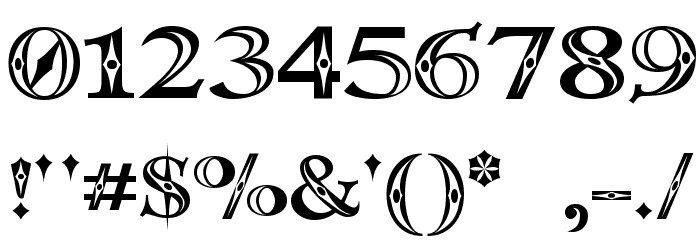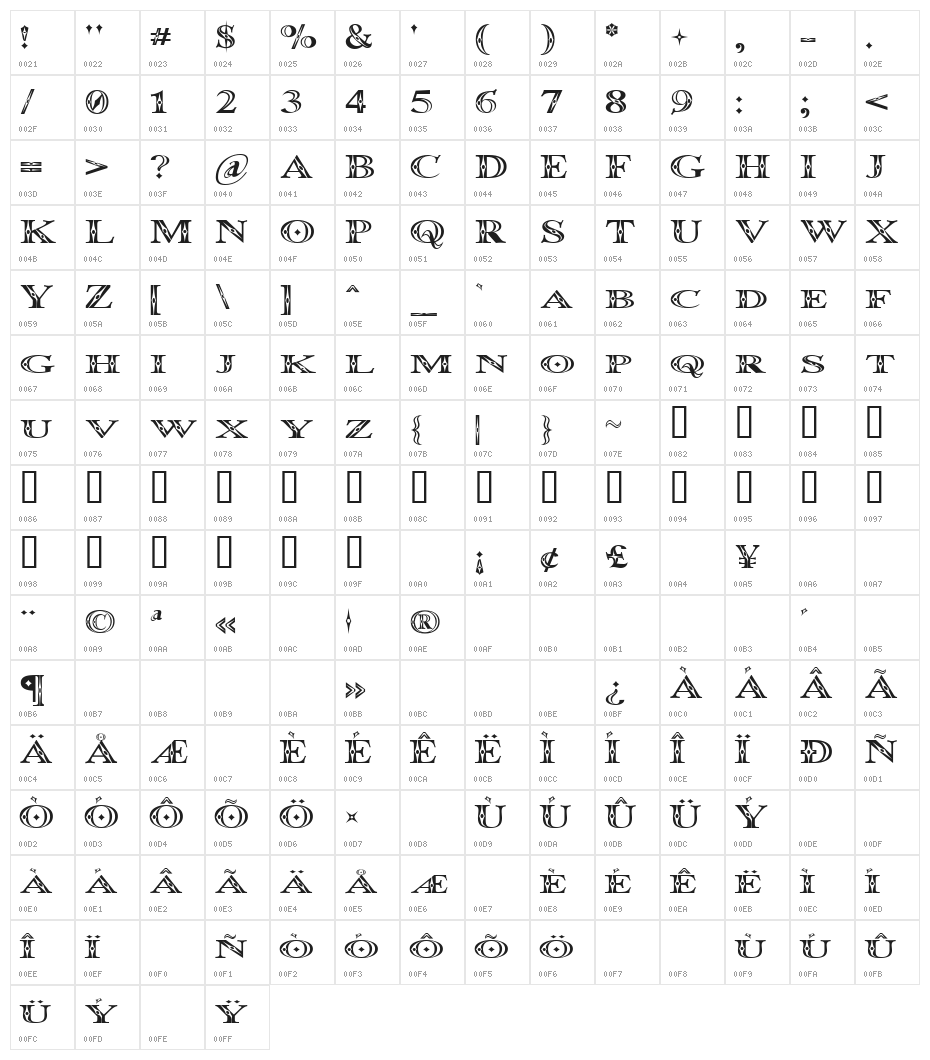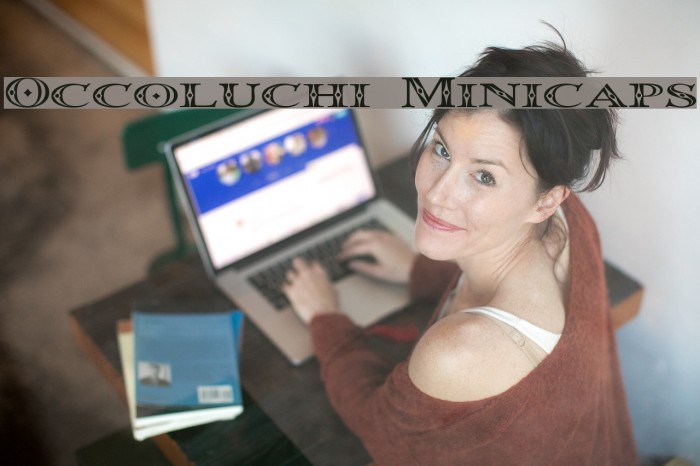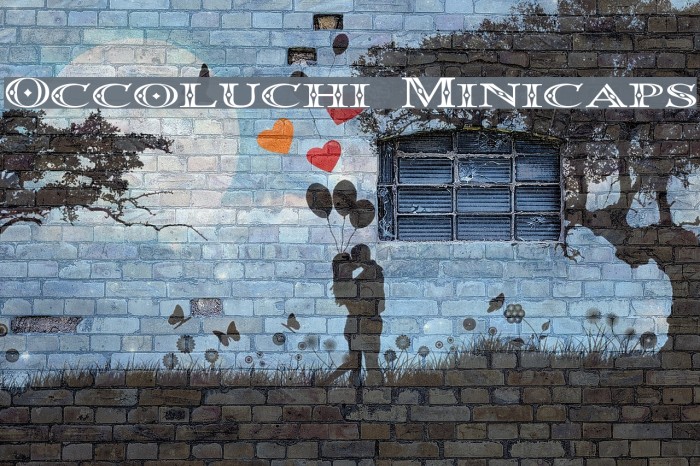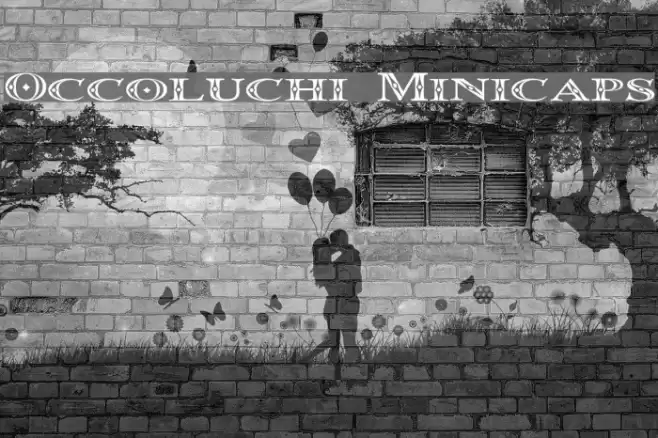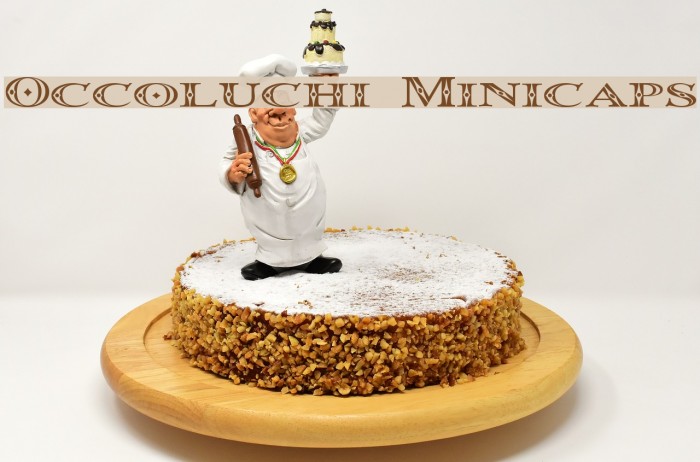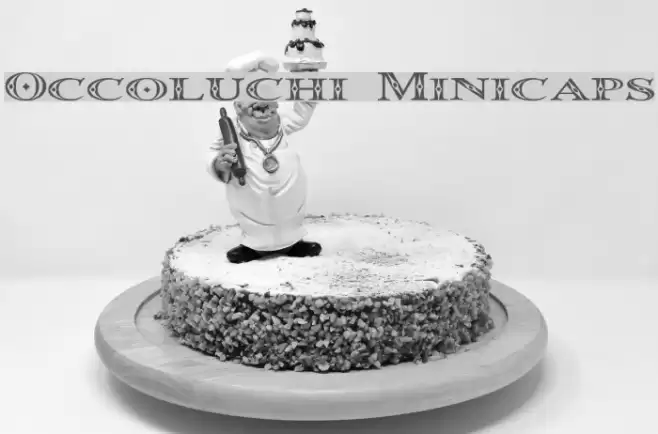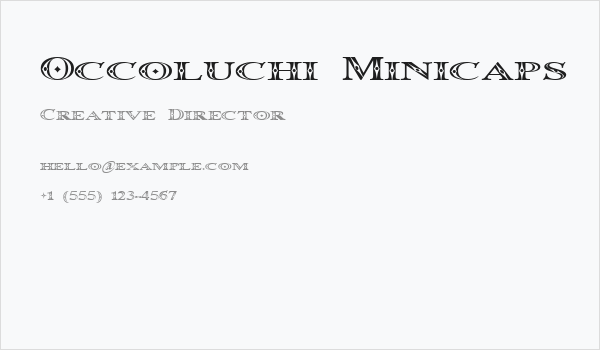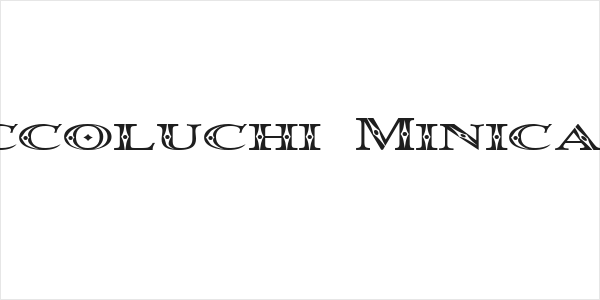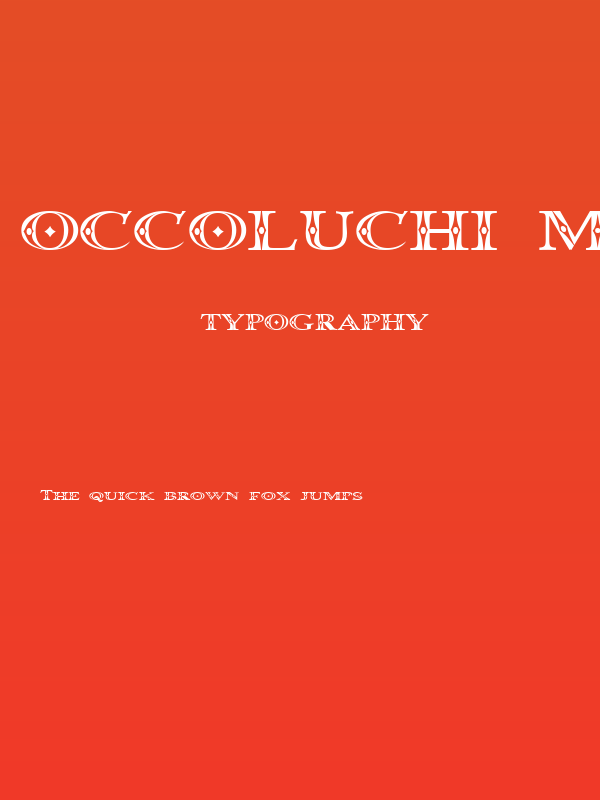
Occoluchi Minicaps Font
Occoluchi Minicaps Description
This font features a bold and decorative style with intricate patterns within each character. The uppercase letters are designed with a unique flair, incorporating geometric shapes and ornamental details that give it a distinct appearance. The lowercase letters maintain this decorative theme, ensuring consistency across the typeface. The numerals are equally stylized, with bold strokes and decorative elements that match the overall aesthetic. Special characters are designed with the same attention to detail, making this font suitable for artistic and creative projects. The font's elaborate design makes it ideal for use in headlines, logos, and other applications where a striking visual impact is desired.
| Proposed Projects | Ideal for artistic projects, branding, logos, and headlines where a striking visual impact is needed. |